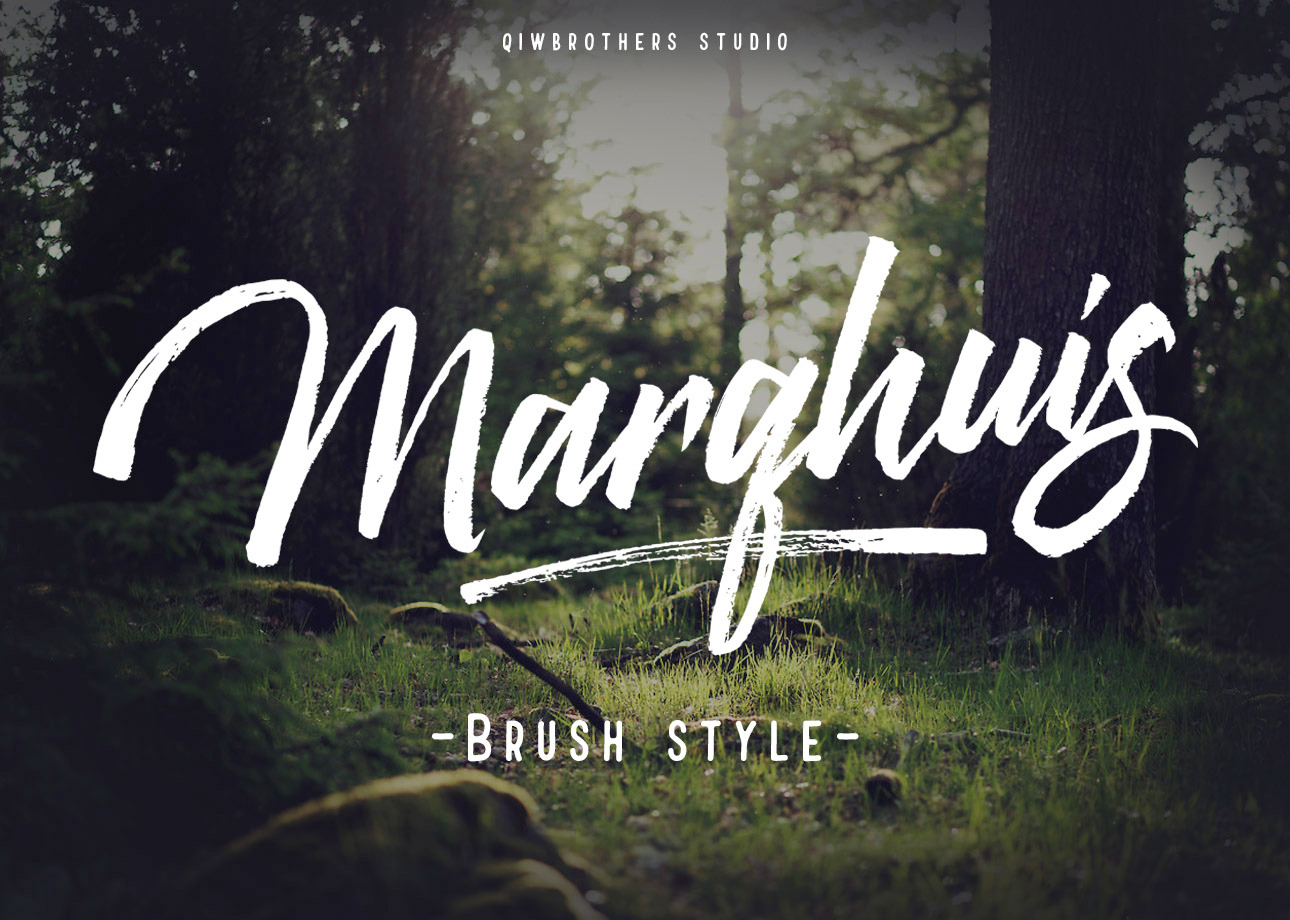
Marqhuis brush font
Marqhuis is handmade brush style from Qiwbrother studio. Marqhuis comes with alternates character, so you can combain it with marqhuis regular character. Marqhuis good for your logos design, poster, branding, apparel, print ad, etc